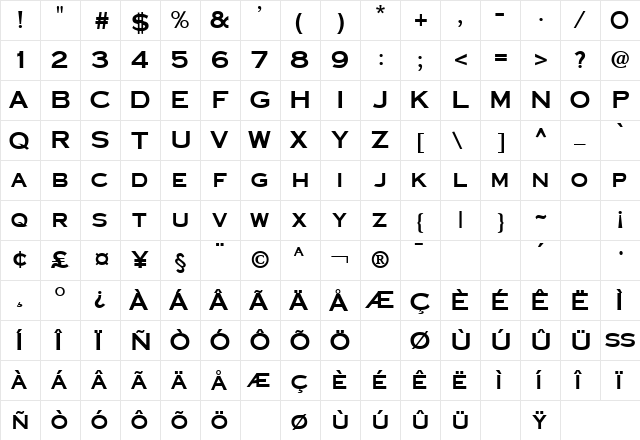
Cornerstone Regular
Design Context for Cornerstone Typeface
Cornerstone takes a measured approach to typography — its balanced proportions and neutral character make it a reliable workhorse for both digital and print work.